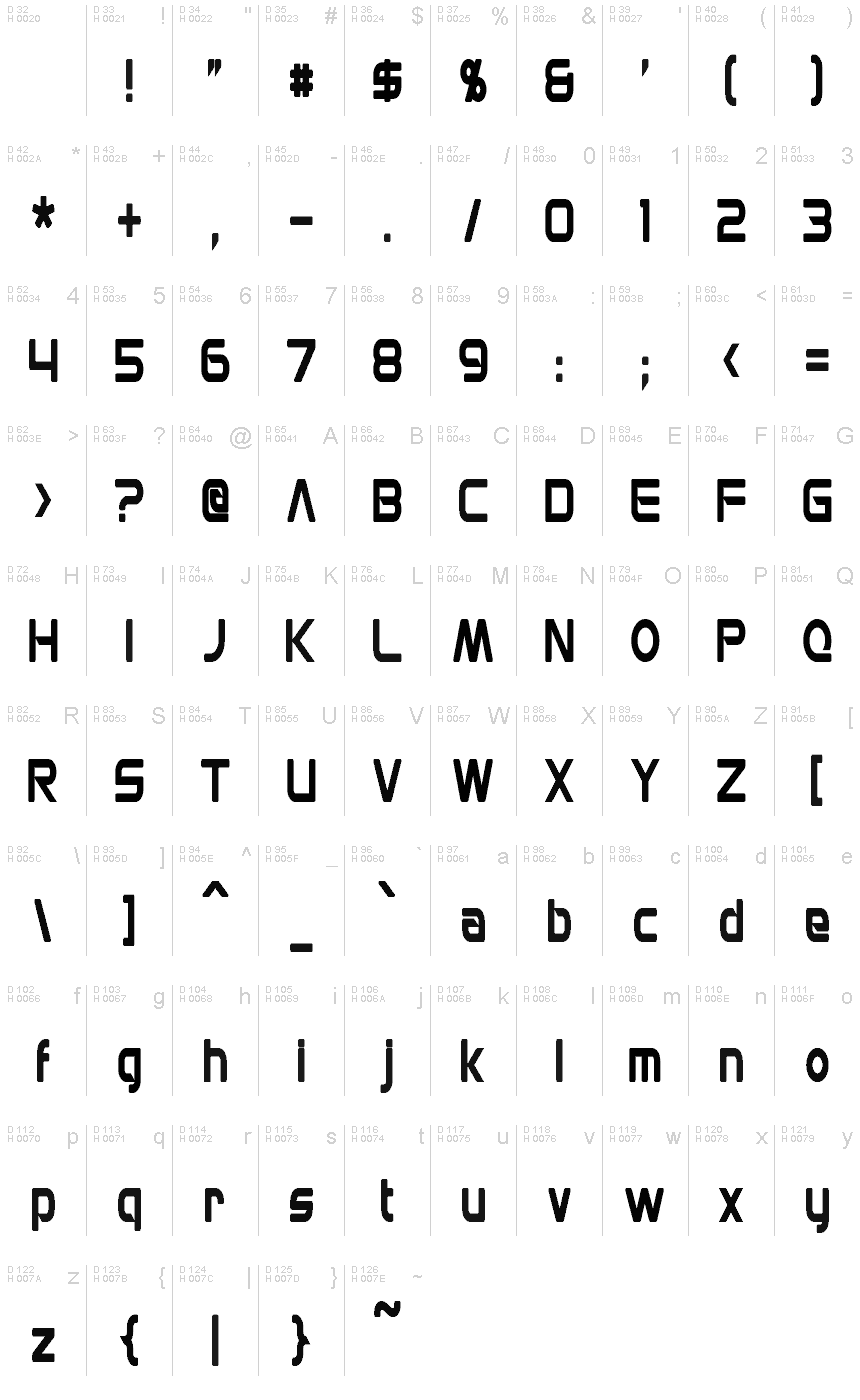
Mons Olympia Condensed Bold
Mons Olympia Condensed Bold, a retro-inspired typeface by designer Neale Davidson, exudes a futuristic flair with its bold, condensed letterforms. Inspired by the classic lettering of the iconic Space Mountain ride, this display font seamlessly blends vintage aesthetics with modern sensibilities, offering a captivating and visually striking typographic experience.
The Mons Olympia Condensed Bold font boasts a distinct personality, with its sharp edges and angular terminals creating a sense of dynamism and technological sophistication. The condensed width adds a sense of efficiency and streamlined elegance, making it an excellent choice for headings, logos, and attention-grabbing design elements.
Versatile in its applications, Mons Olympia Condensed Bold excels in a wide range of design contexts, from retro-futuristic branding and sci-fi-inspired media to contemporary packaging and editorial layouts. Its bold, legible characters ensure maximum impact, making it a compelling choice for designers seeking to evoke a sense of the future while paying homage to the past.
The Mons Olympia Condensed Bold font boasts a distinct personality, with its sharp edges and angular terminals creating a sense of dynamism and technological sophistication. The condensed width adds a sense of efficiency and streamlined elegance, making it an excellent choice for headings, logos, and attention-grabbing design elements.
Versatile in its applications, Mons Olympia Condensed Bold excels in a wide range of design contexts, from retro-futuristic branding and sci-fi-inspired media to contemporary packaging and editorial layouts. Its bold, legible characters ensure maximum impact, making it a compelling choice for designers seeking to evoke a sense of the future while paying homage to the past.